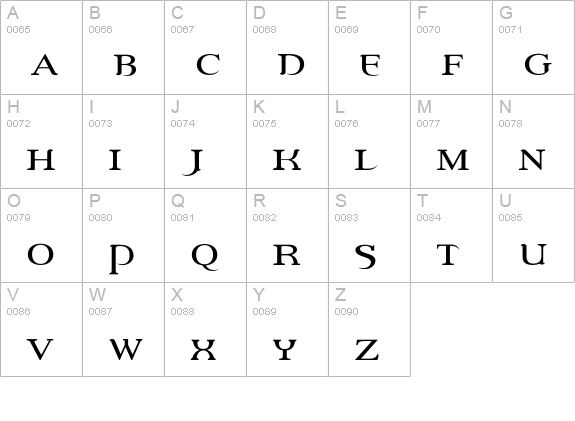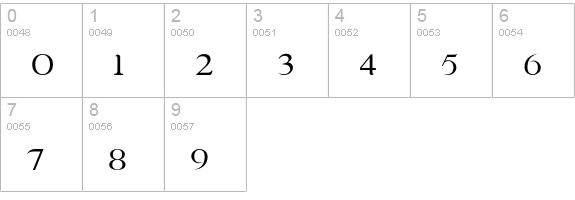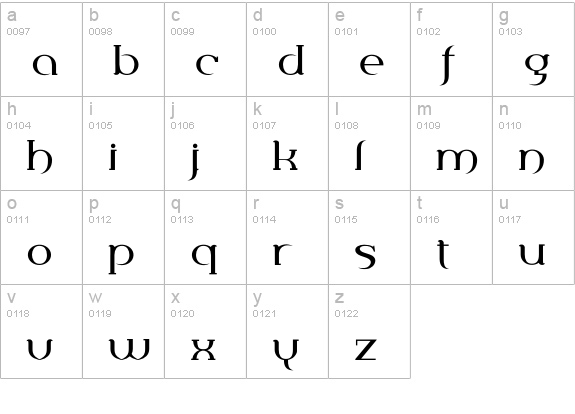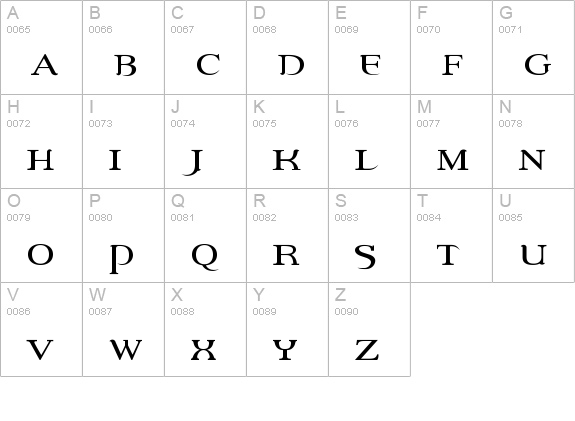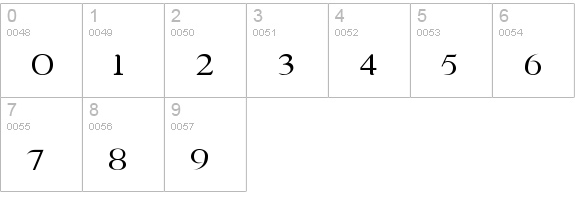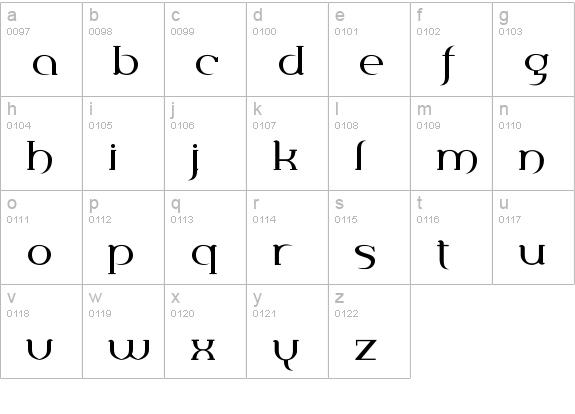
Percolator Font Details
Percolator font is a stunningly unique and eye-catching typeface that is sure to grab attention wherever it's used. With its bold and playful design, this font is perfect for adding a touch of creativity and personality to your projects. The letters in Percolator font seem to dance across the page, creating a dynamic and energetic visual experience. Each character is meticulously crafted, with intricate details that make it stand out from other fonts. Whether you're designing a logo, creating a poster, or crafting a headline, Percolator font is sure to make a lasting impression. What's even better is that Percolator font is available for free download at FontsMarket.com. Yes, you read that right - it's completely free! This means that you can start using this incredible font right away, without having to worry about any additional costs. The versatility of Percolator font is also worth mentioning. It can be used for a wide range of design projects, from branding and advertising to social media graphics and website design. Its playful nature makes it suitable for projects that require a sense of fun and excitement, while its boldness ensures that it commands attention. So why wait? Take advantage of the opportunity to download Percolator font for free at FontsMarket.com and give your projects a vibrant and energetic look. With its stunning design and the freedom to use it without any cost, Percolator font is a must-have for any designer or creative professional. Grab it now and let your creativity flow!